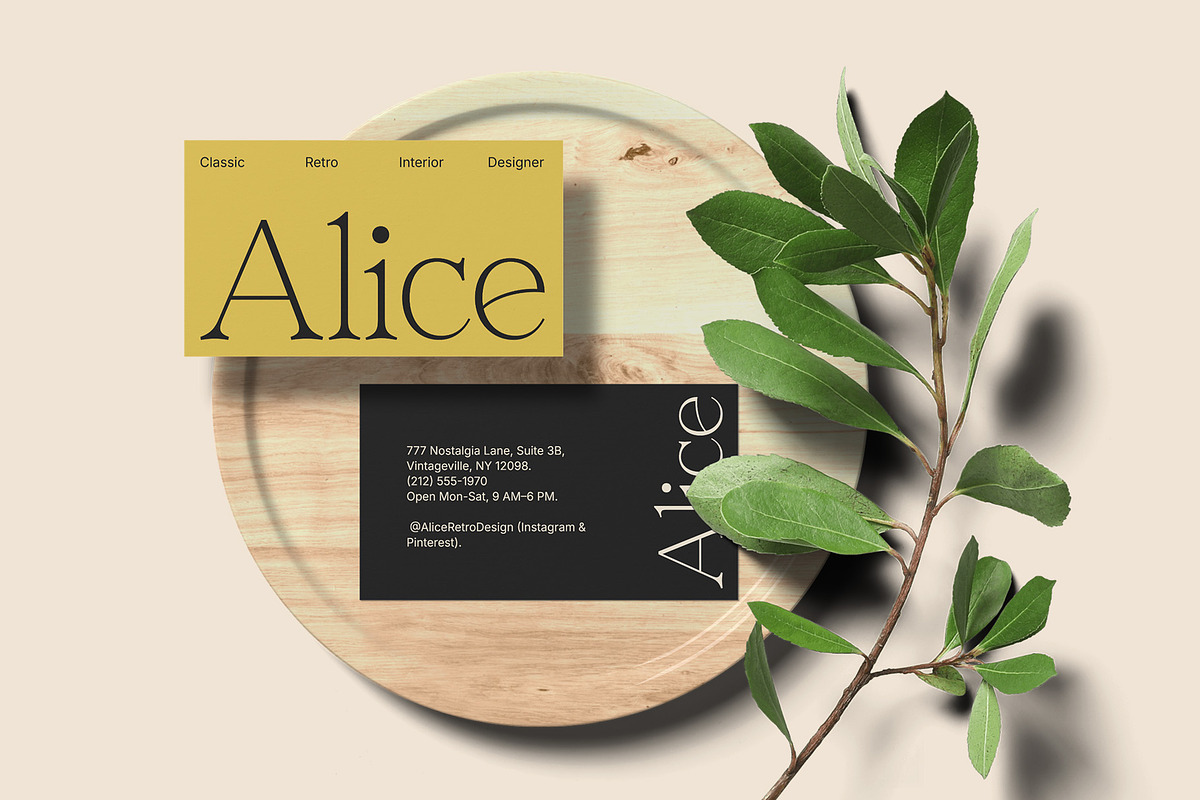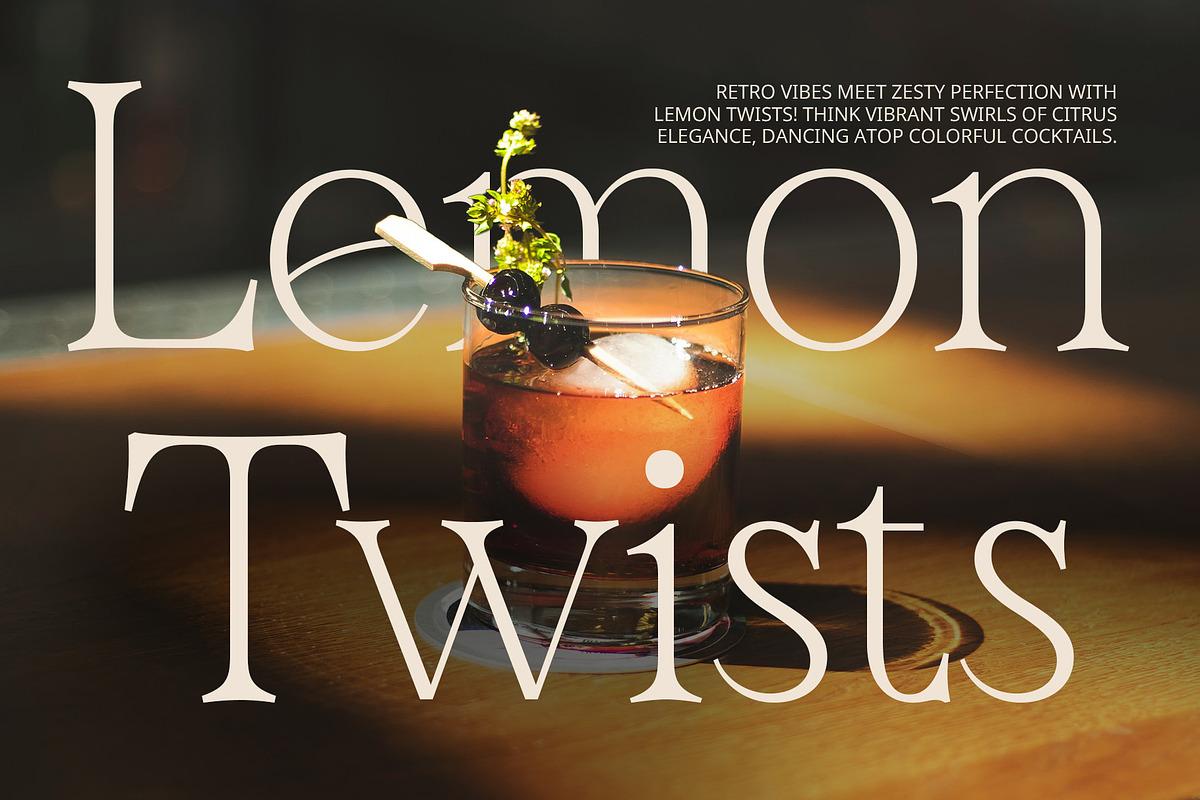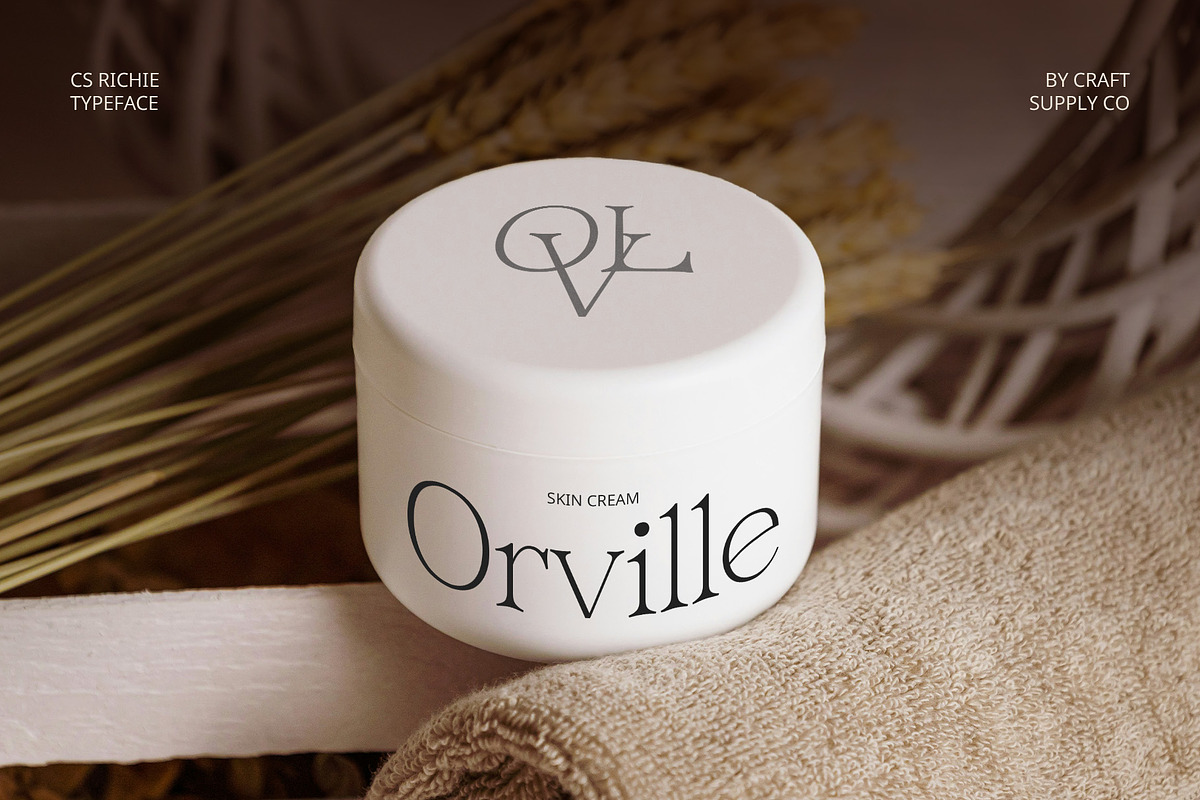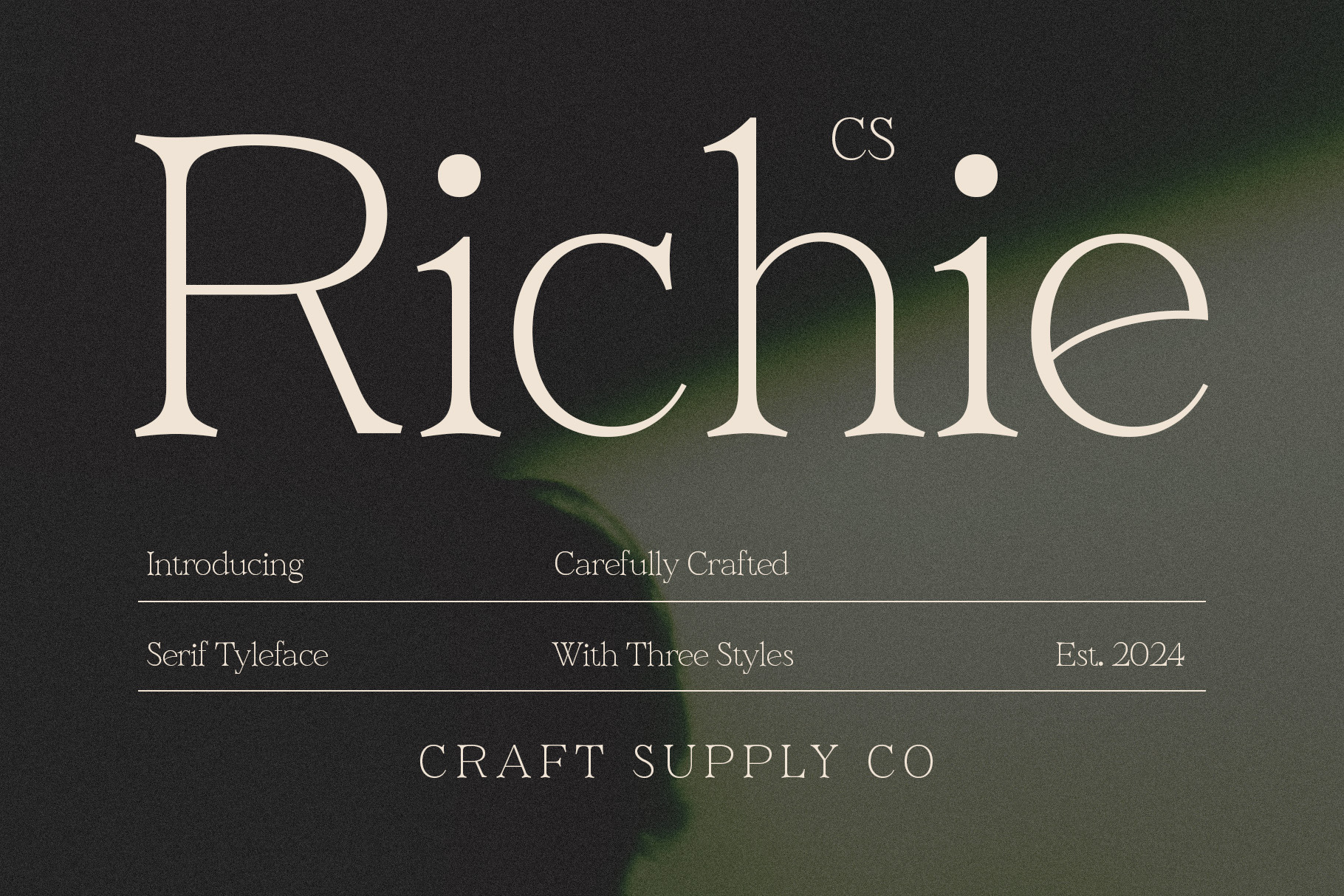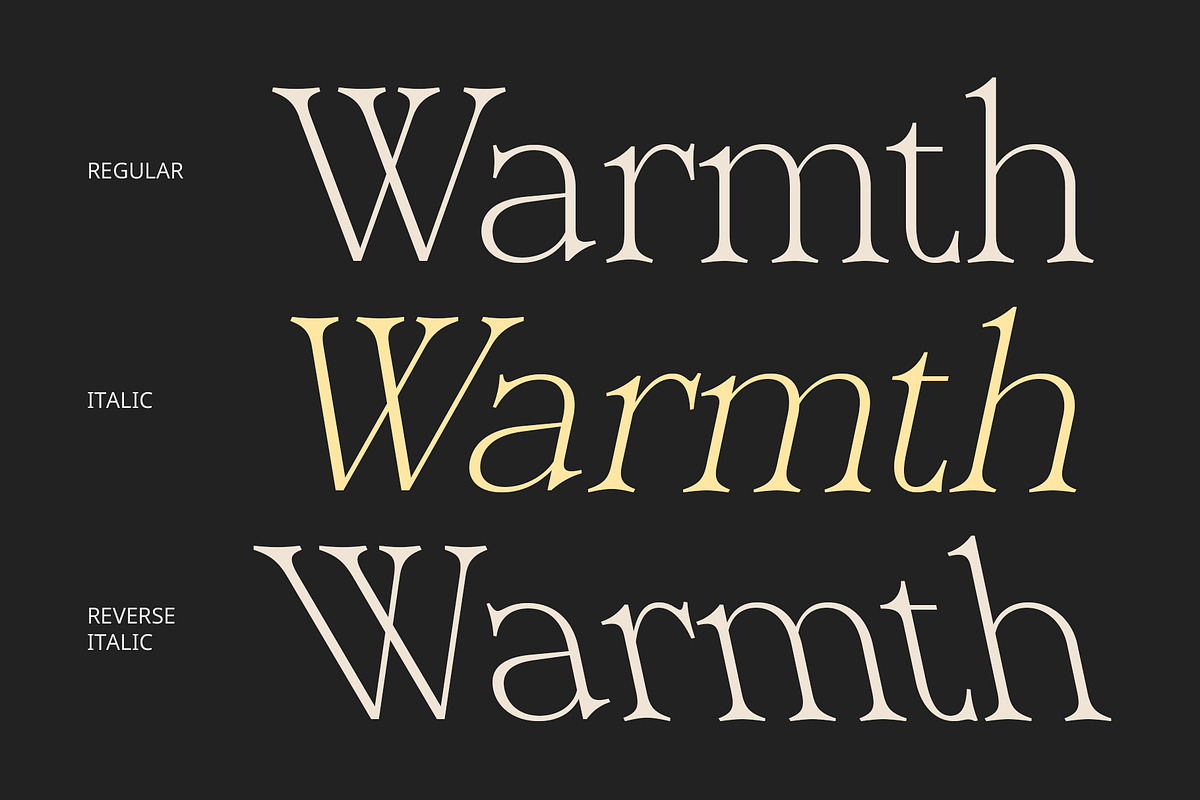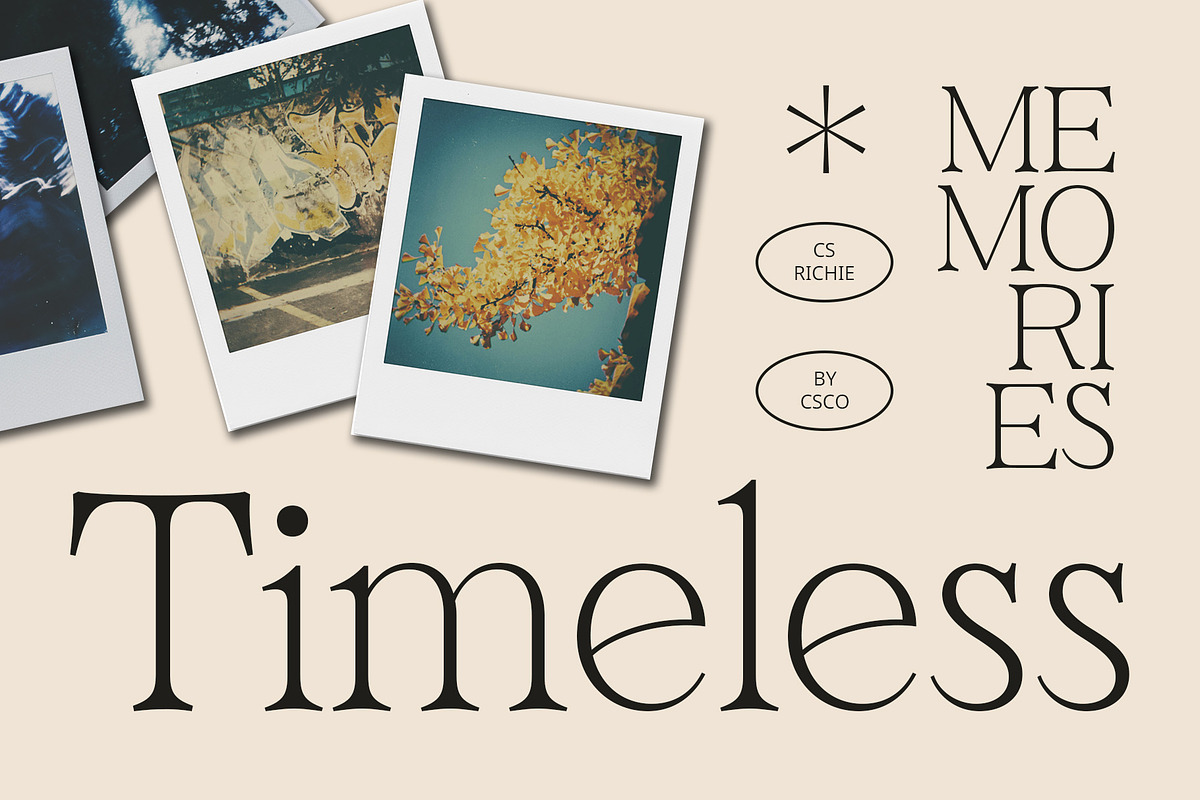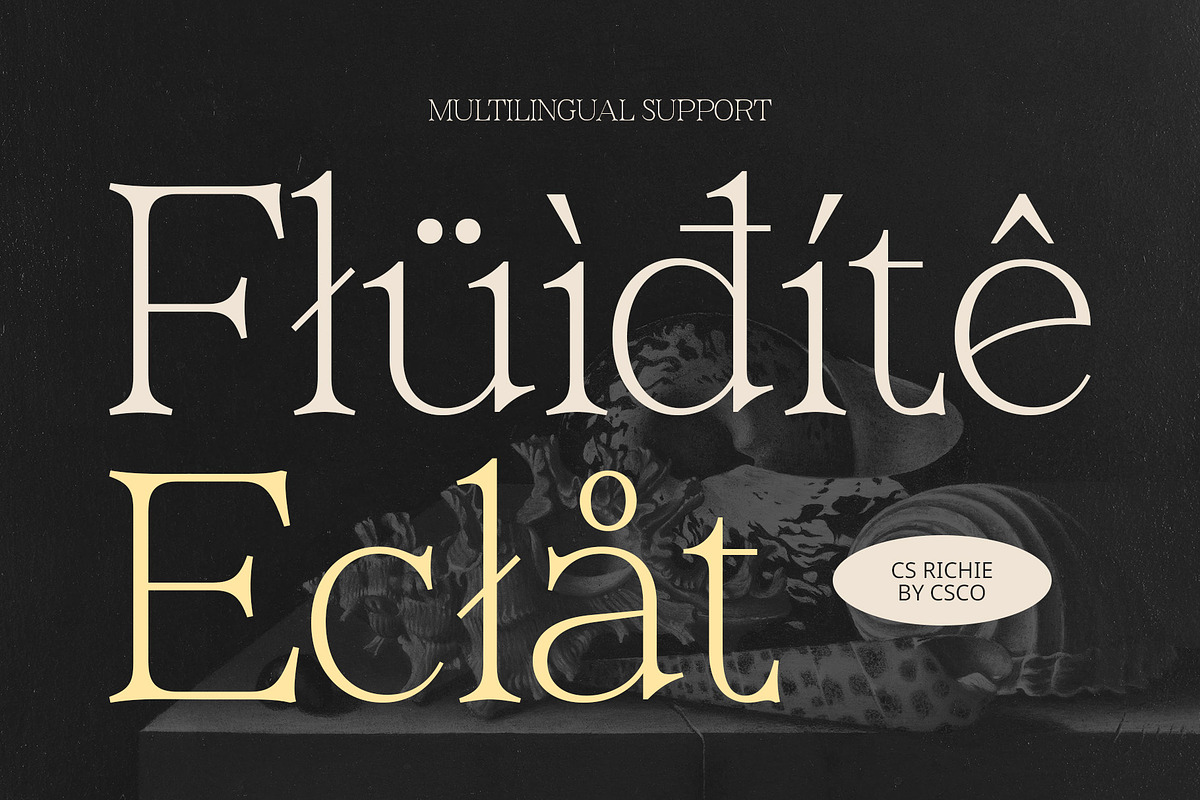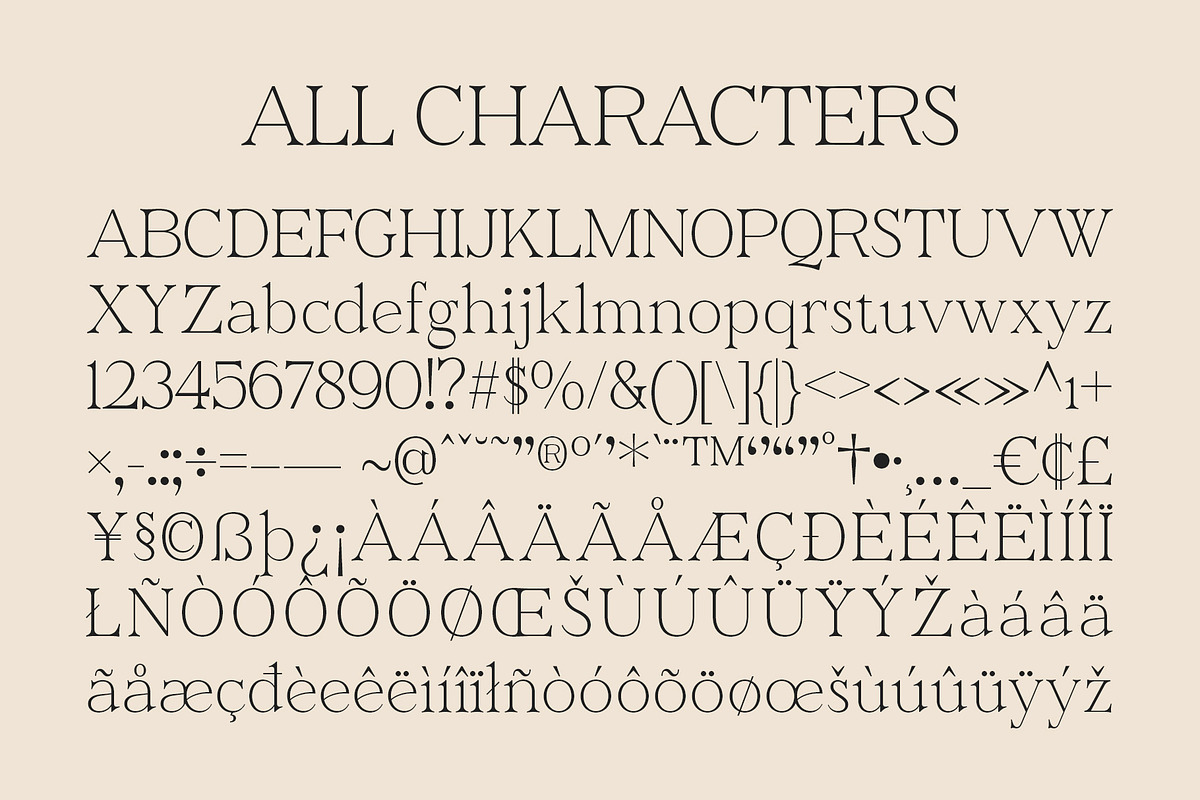
CS Richie – Elegant Font
CS Richie – Elegant Font: Refined Elegance with Modern Charm
Sleek and Sophisticated Design CS Richie is a modern serif font that embodies elegance and grace, combining balanced letter proportions and smooth, clean lines to create a refined and timeless look. The sharp yet understated serifs, paired with carefully crafted details, offer a sophisticated feel without being overly ornate. This minimalist approach ensures the font maintains a professional and polished appearance, making it ideal for designs that seek both style and clarity.
Light, Modern, and Readable The slim design of CS Richie provides a light, airy aesthetic that conveys a sense of modernity and freshness. The simplicity of the shapes contributes to high readability, making this font versatile for a wide range of applications while retaining an elegant presence. The clean lines and balanced proportions give it a contemporary, timeless feel, ensuring it remains relevant across various design trends.
Perfect for Luxury and Professional Projects CS Richie is the ideal choice for designs requiring a luxurious and elegant touch. Whether used in high-end branding, editorial work, or formal invitations, this font adds a sense of opulence without excessive decoration. Its sleek form elevates any design project, perfect for conveying sophistication in branding, fashion, weddings, and other premium applications.